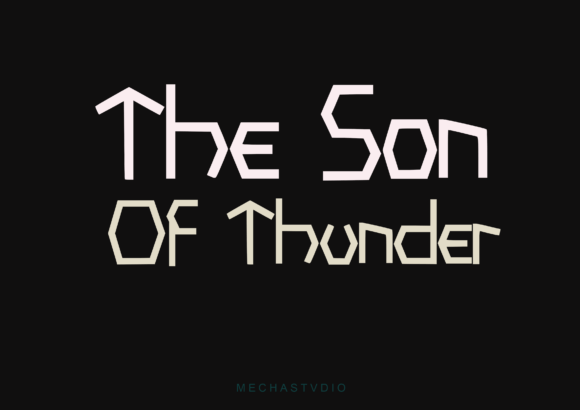
Introduction to Putra Petir Font
Putra Petir is a simple, modern, and fun display font.
Its unique style is perfect for all your projects as it has the potential to transform them into a true standout .
Key Features of Putra Petir Font